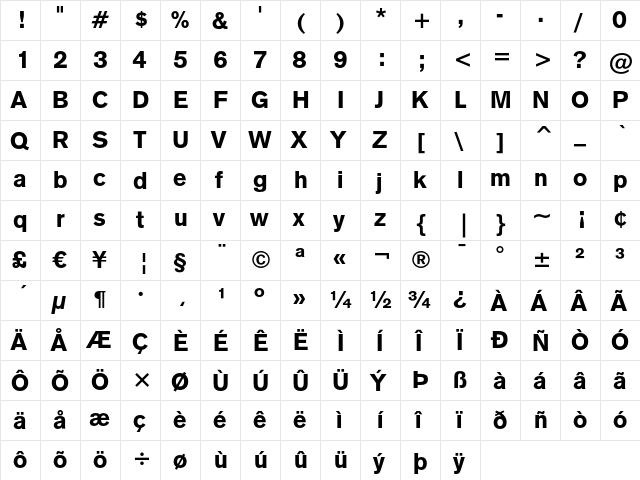
Gothic 725 Black
Design Context for Gothic 725 Typeface
Gothic 725 takes a clean, functional approach — its unadorned letterforms prioritise legibility and work reliably across screen and print environments.
Font Pairing: Works well alongside a characterful serif or display font that can carry the expressive load while Gothic 725 handles the functional copy.
Pro Tip: Pair Gothic 725 with a display or serif font for headlines — its neutral character makes it an excellent supporting player in complex typographic systems.